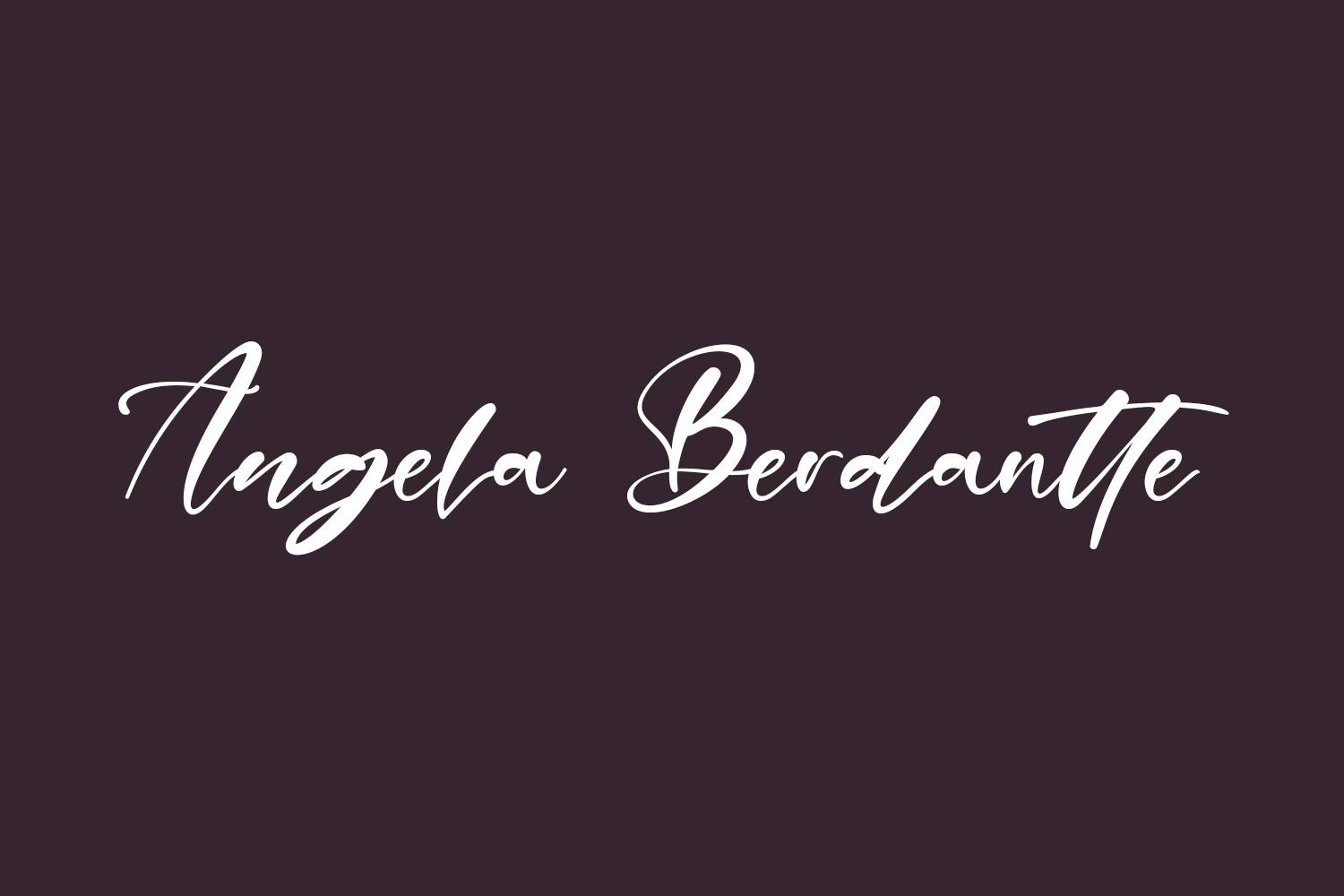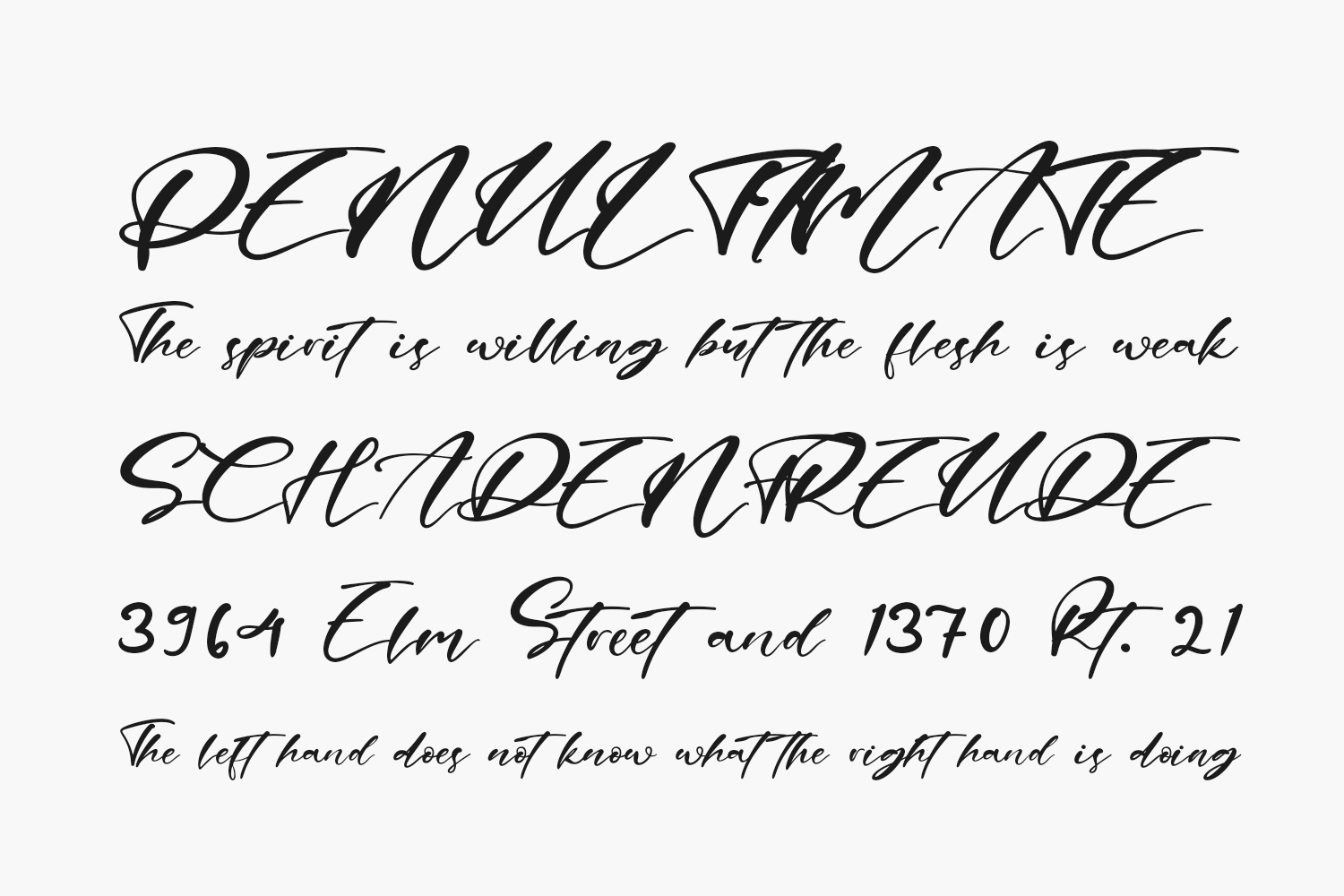
Angela Berdantte Free Font is a classic and playful handwritten script font. It’s great for crafters and designers. Compatible with tools such as Photoshop and Silhouette design studio. its playfulness can make it great for creative projects. Angela Berdantte Free Font was designed by Kong Font and is free for personal use only. Please purchase the full version for commercial use.